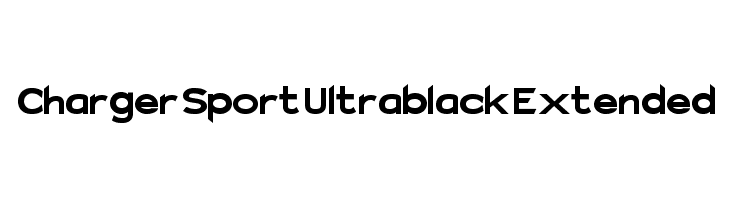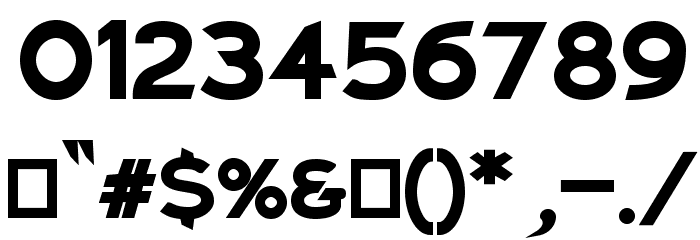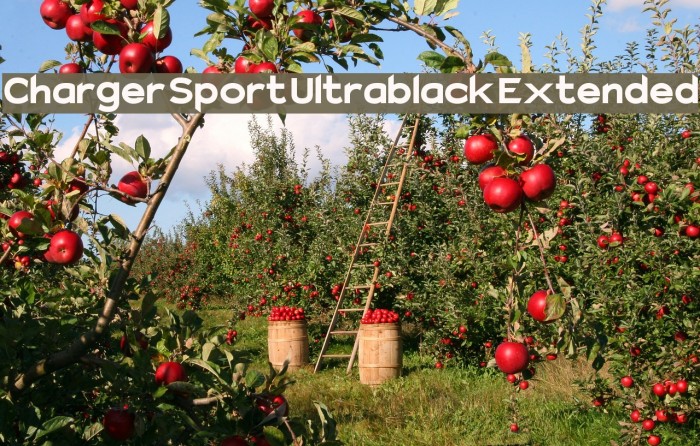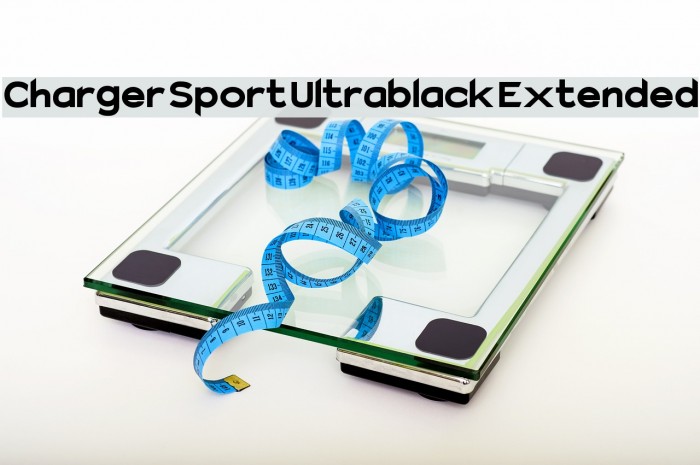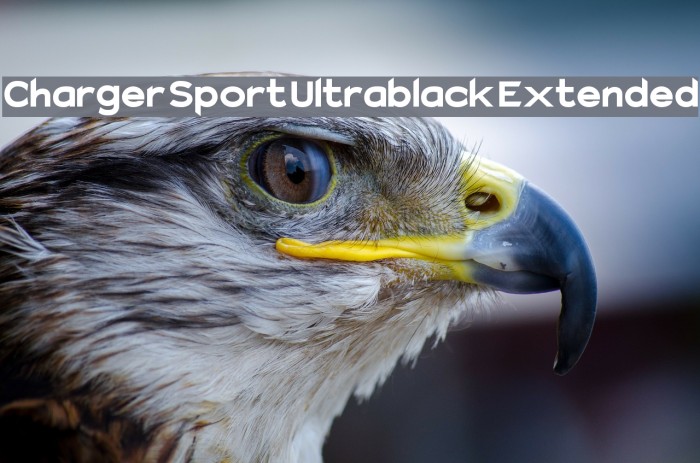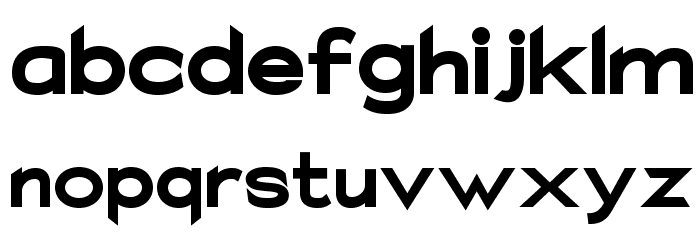
Charger Sport Ultrablack Extended Font
Charger Sport Ultrablack Extended Description
This font is a bold, modern sans-serif typeface with a strong presence. It features thick, uniform strokes that give it a powerful and commanding appearance. The characters are wide and extended, providing a sense of stability and confidence. The uppercase letters are particularly striking, with a geometric design that emphasizes clarity and readability. The lowercase letters maintain a consistent style, offering a harmonious balance between the two cases. Numbers and special characters are designed with the same boldness, ensuring a cohesive look across all elements. This font is ideal for making a statement, with its high impact and contemporary style.
A bold, modern sans-serif font with wide, extended characters and a strong presence from Uncategorized fonts.